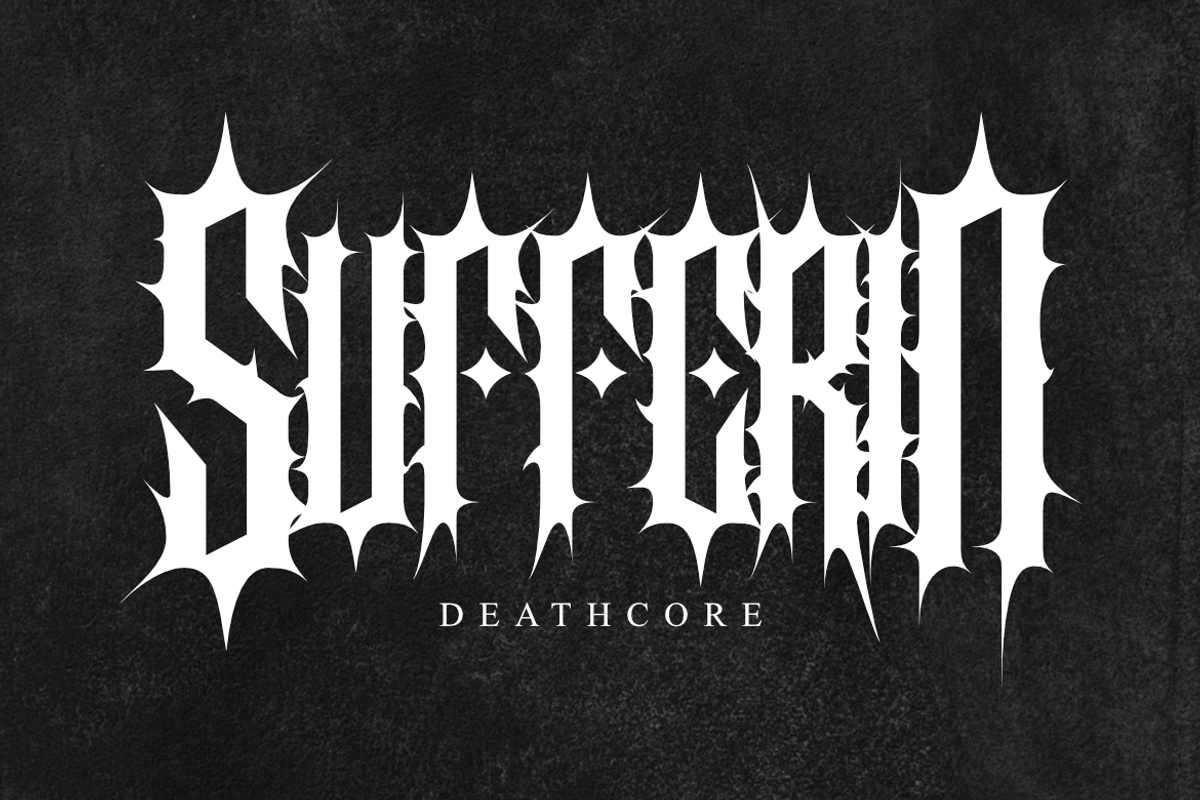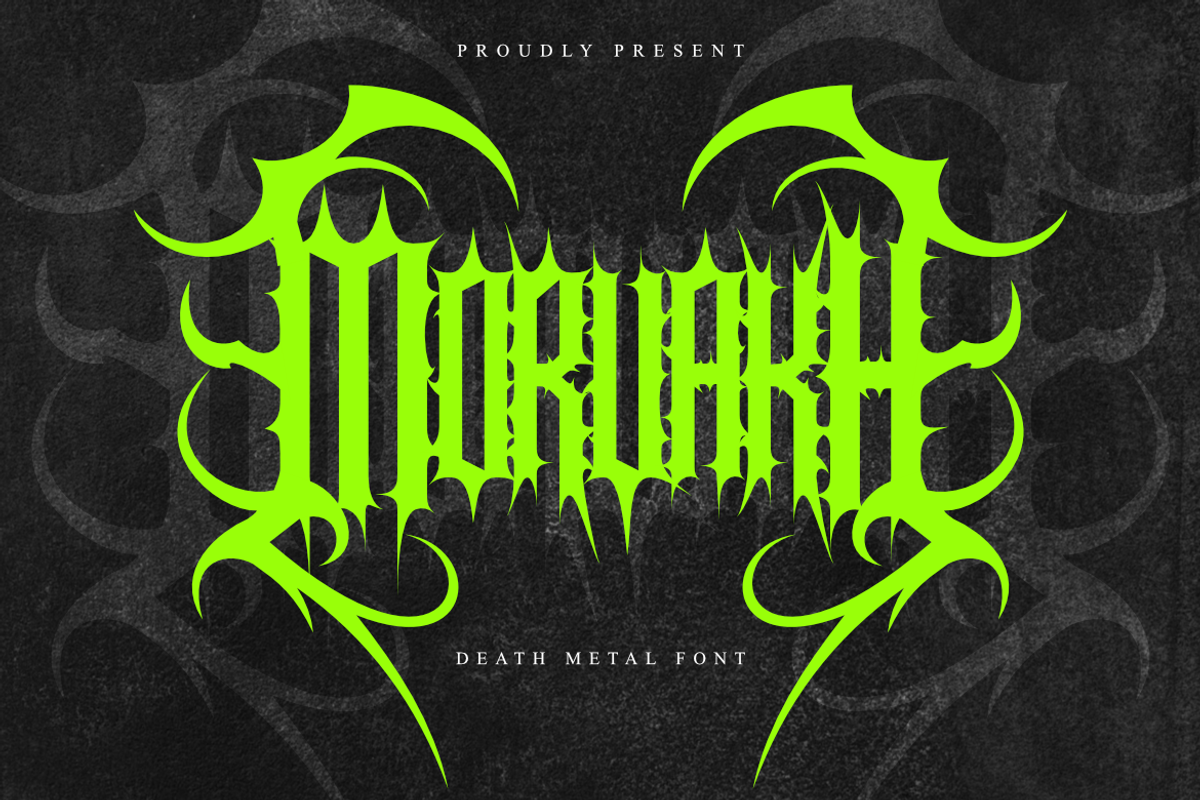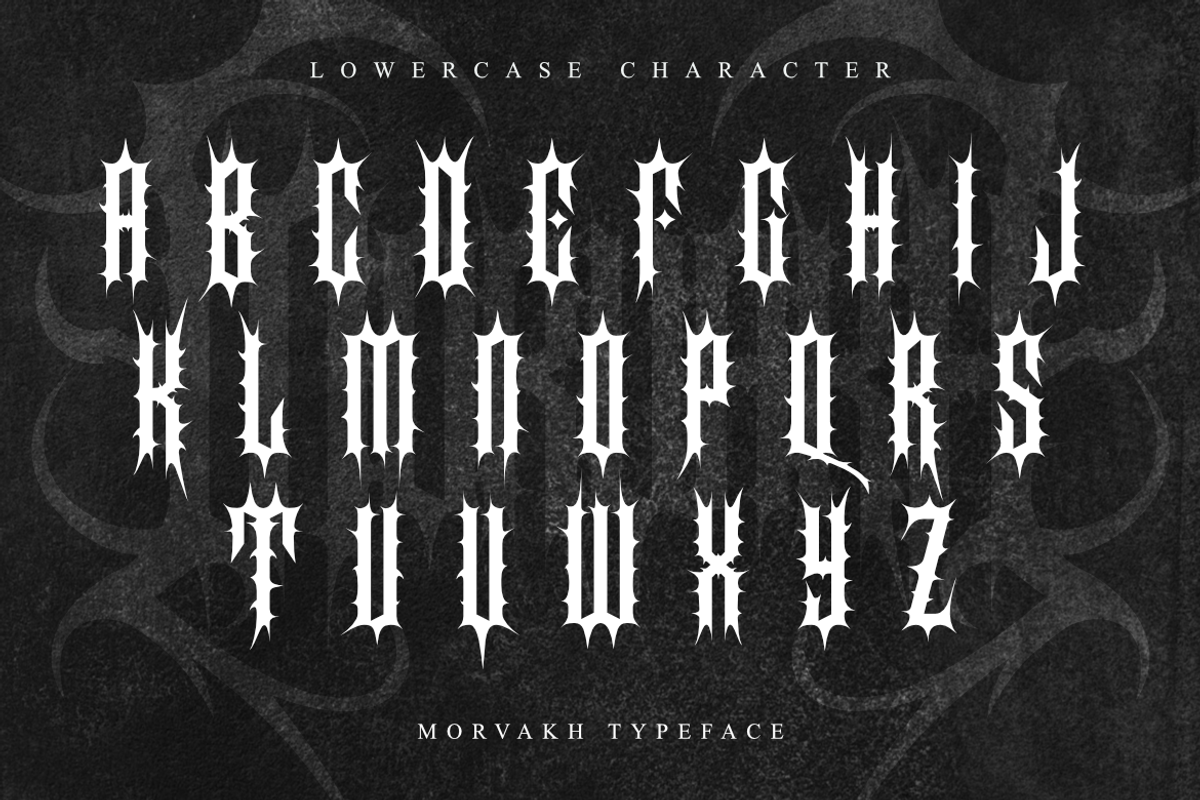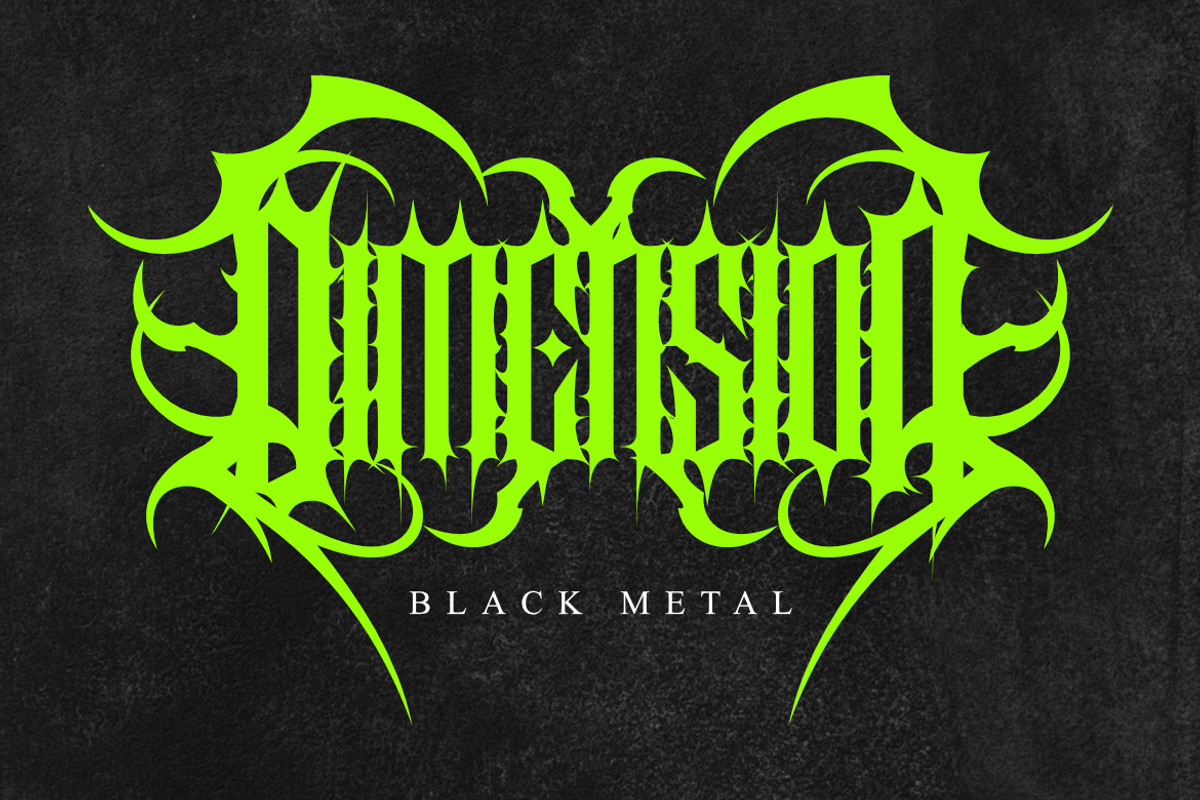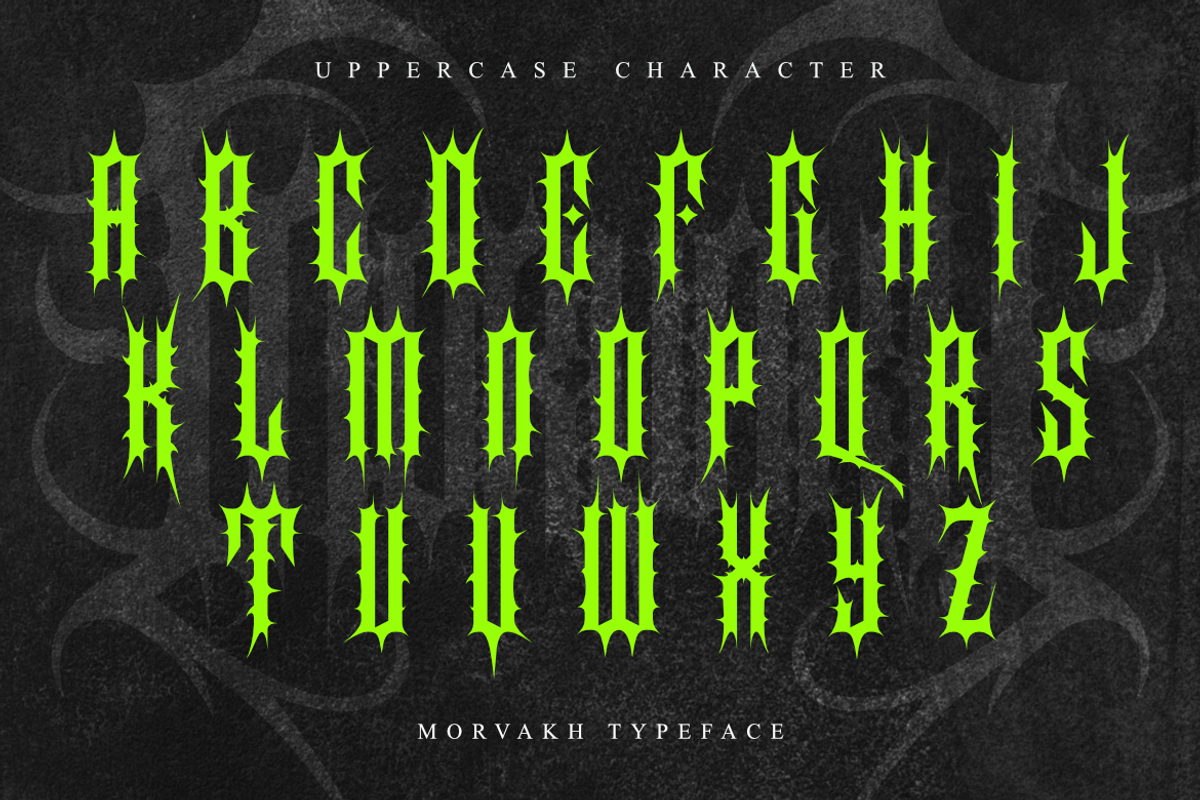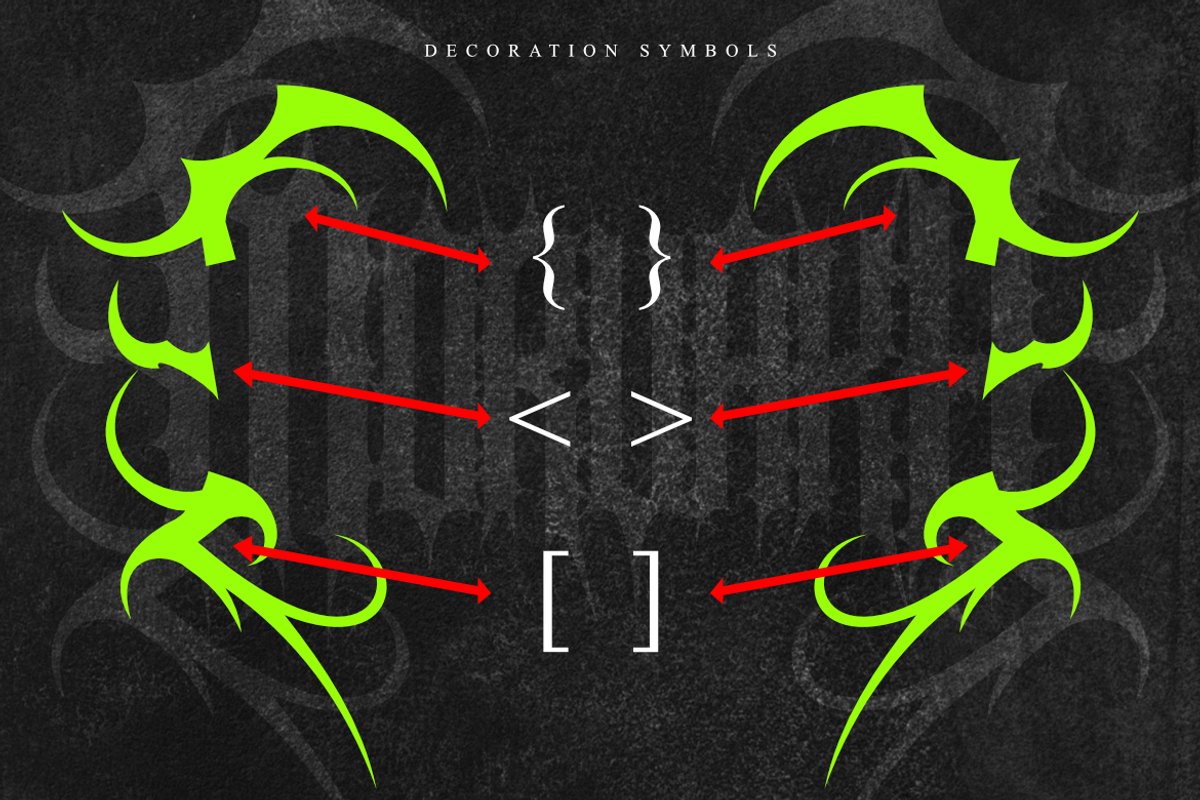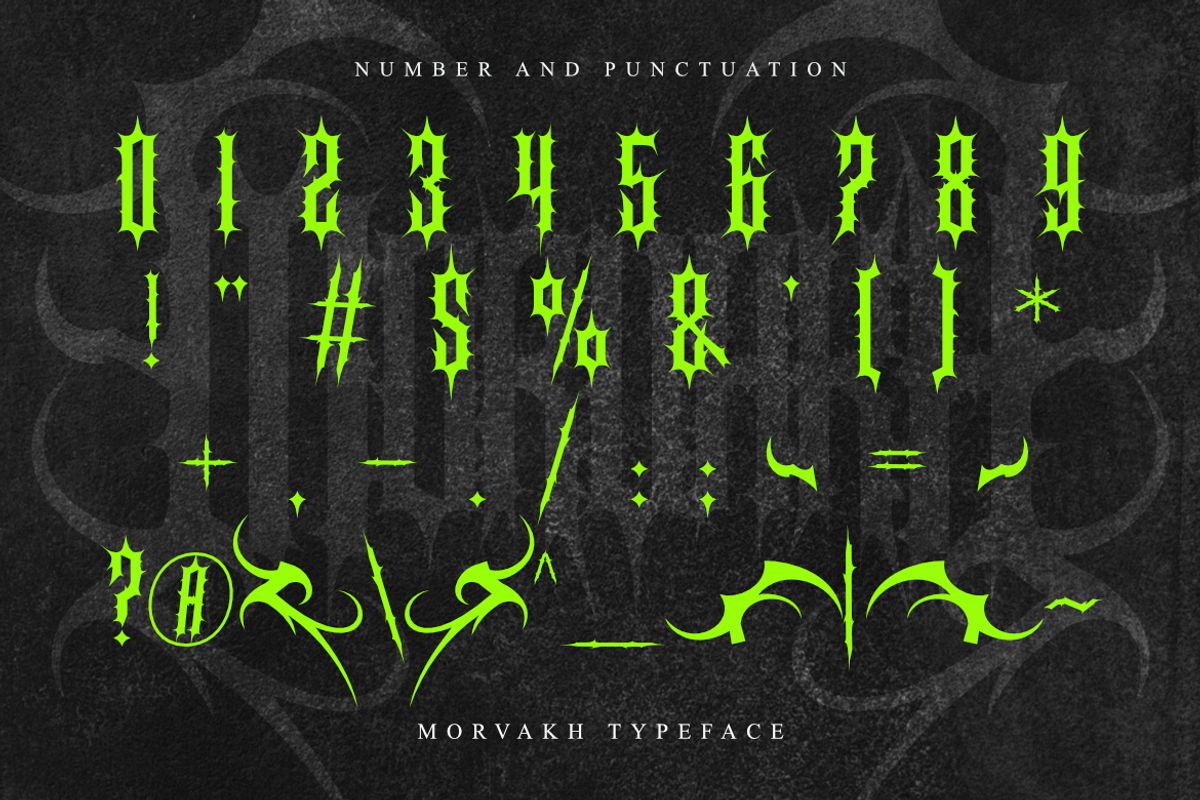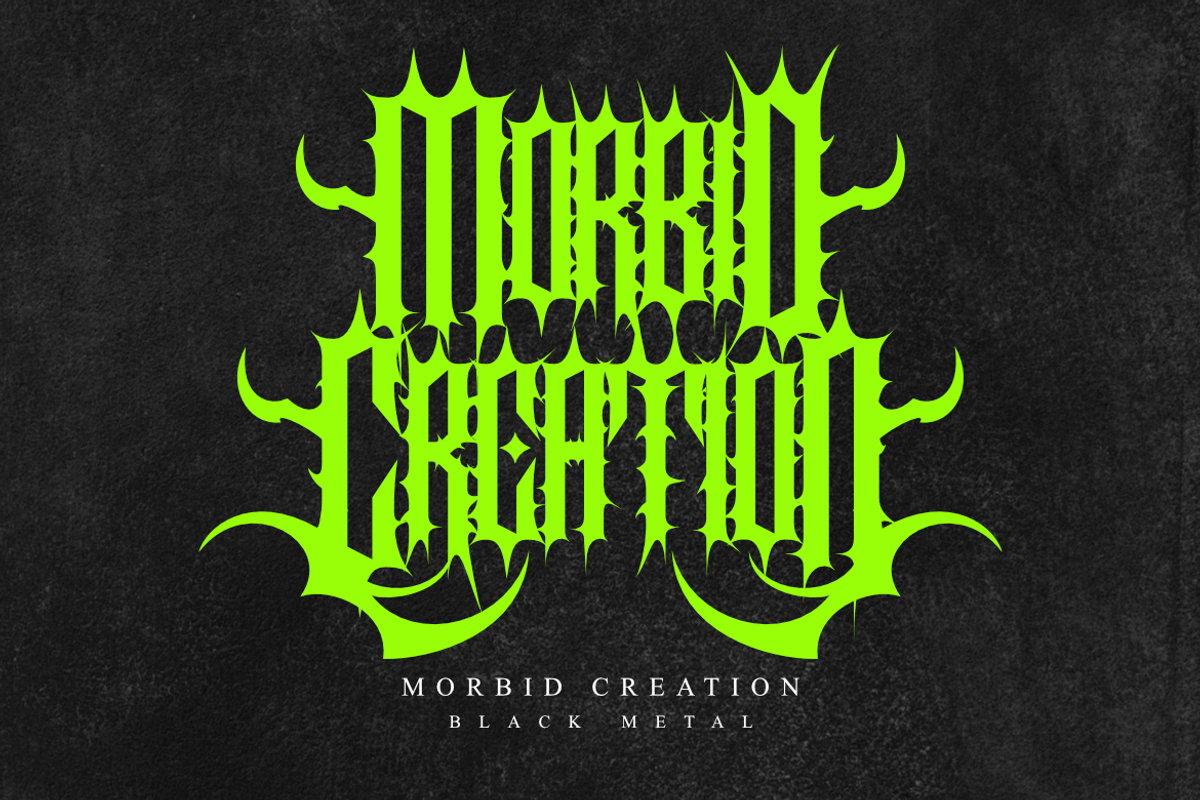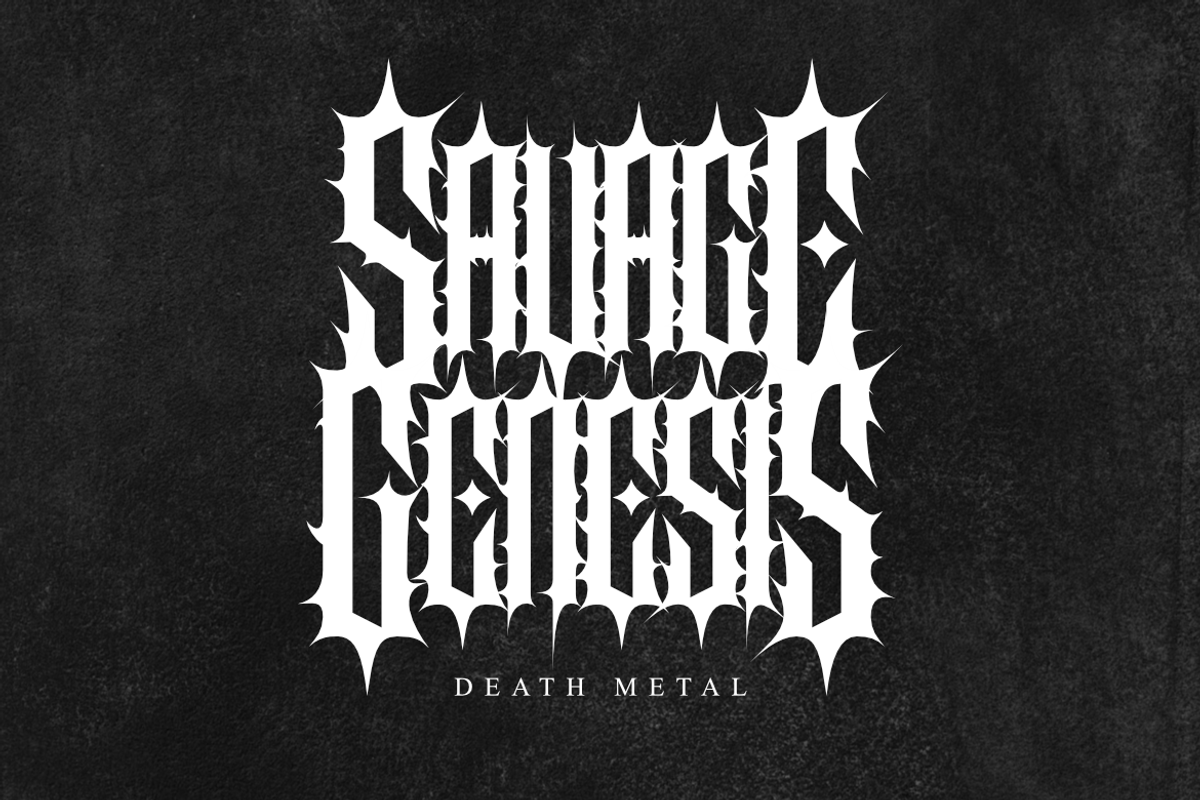
Morvakh - Death Metal Font
Introducing Morvanh — a brutal Death Metal Font forged with razor-sharp gothic forms, intricate spikes, and an aggressive symmetrical structure. Its extreme letterforms create a dark and chaotic visual identity inspired by underground metal aesthetics, occult artwork, and the raw energy of extreme music.
Morvanh is designed to transform ordinary words into powerful metal-inspired visuals. The highly detailed construction and dramatic extensions make it especially effective when used as a dominant display element for dark and atmospheric compositions.
Perfect for death metal band logos, album artwork, horror titles, dark posters, event graphics, tattoo-inspired branding, and other projects that demand an intense and sinister visual presence.
Unleash the darkness with Morvanh — an extreme display typeface created for designs that refuse to be ordinary.
💀 Features
Uppercase Letters
Ornamental Gothic Letterforms
Sharp & Spiky Details
Symmetrical Death Metal Style
⚡ Perfect For
Death Metal Band Logos
Album Artwork & Covers
Horror Titles
Dark Posters & Flyers
Gothic Branding
Music Event Graphics
Tattoo-Inspired Designs
Occult-Themed Artwork